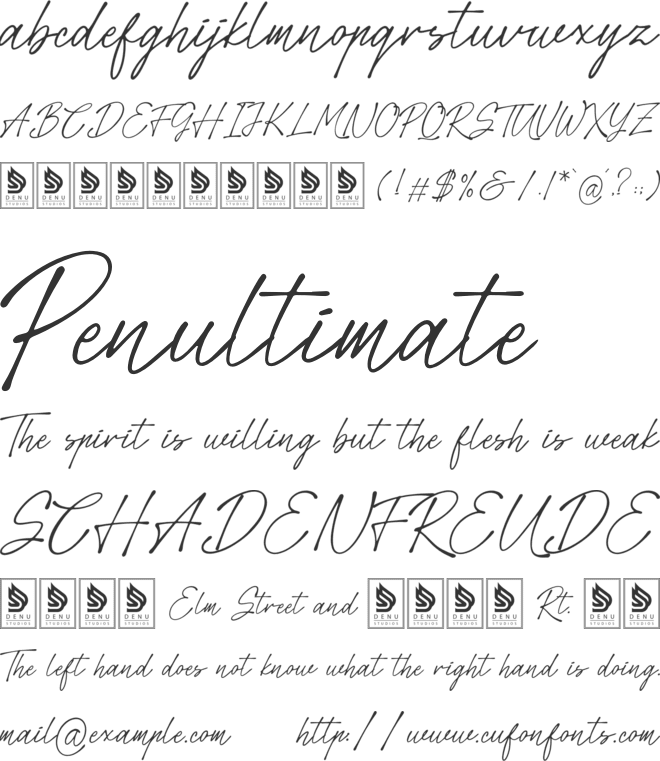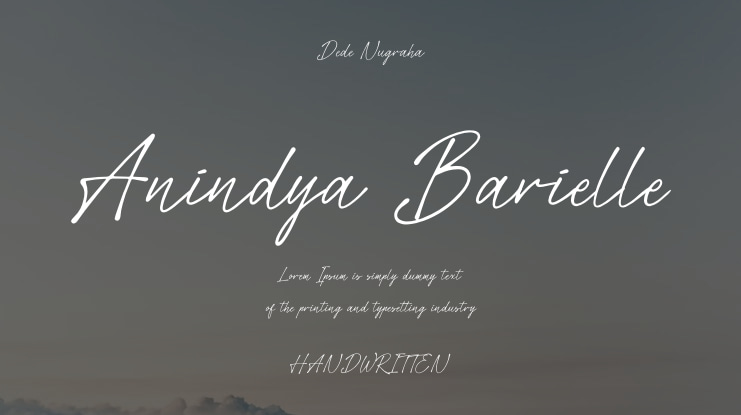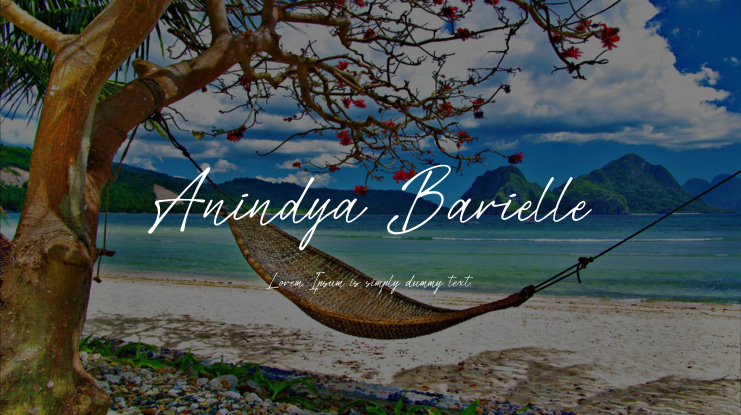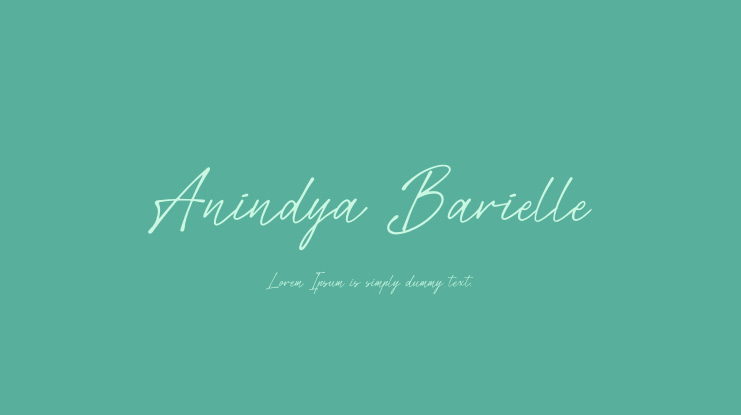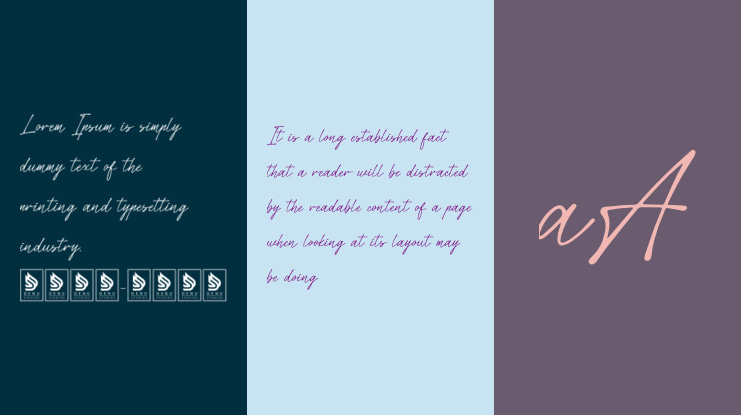
Anindya Barielle | Handwritten Script is a versatile font ideal for various projects, including:
- Logos - Branding projects - Homeware designs - Product packaging - Mugs - Quotes - Posters - Shopping bags - T-shirts - Book covers - Name cards - Invitation cards - Greeting cards - Labels - Photography watermarks - Special events
This font adds an elegant script touch to all your creative endeavors.